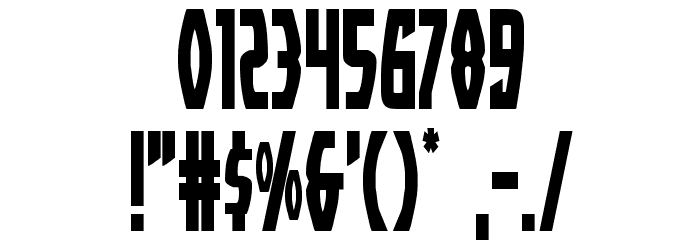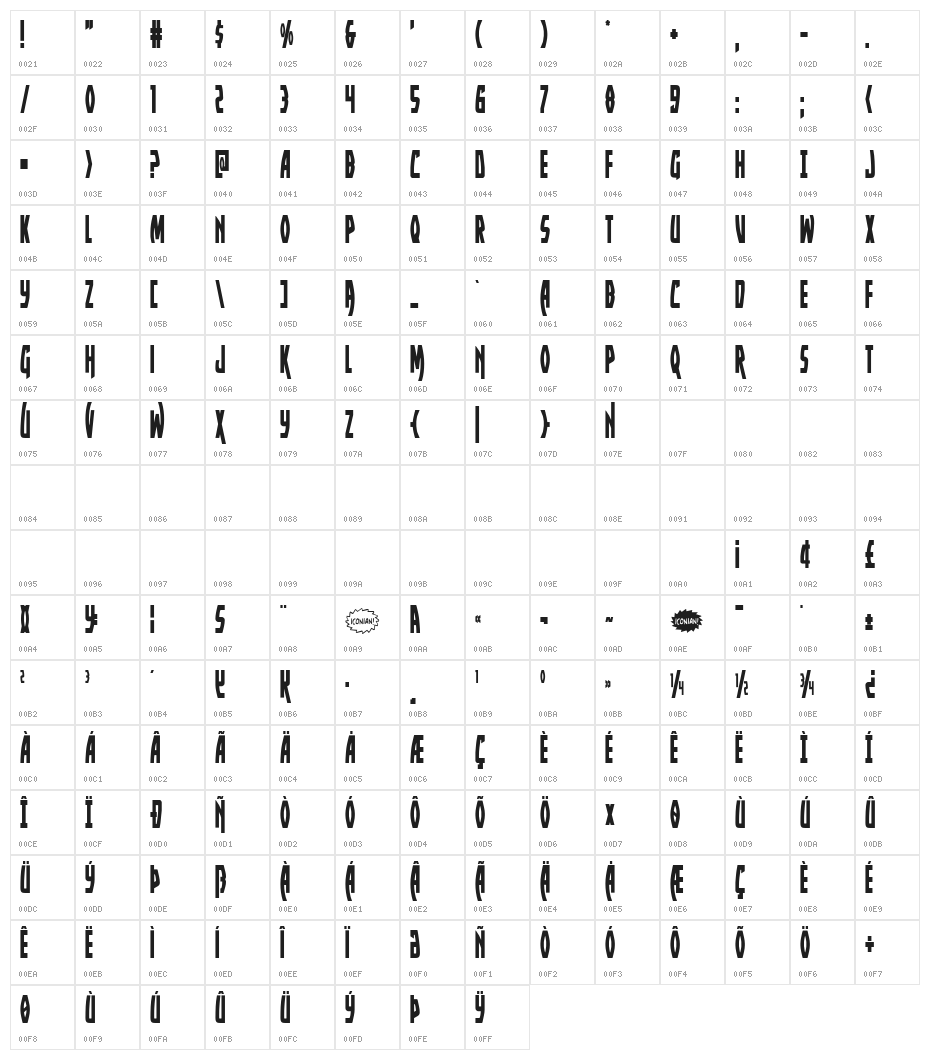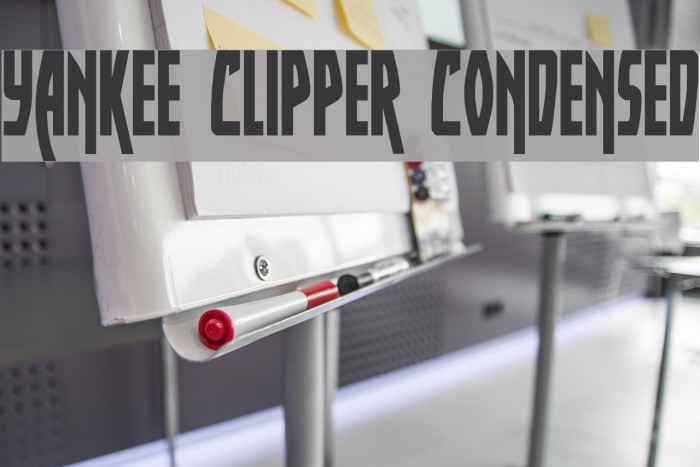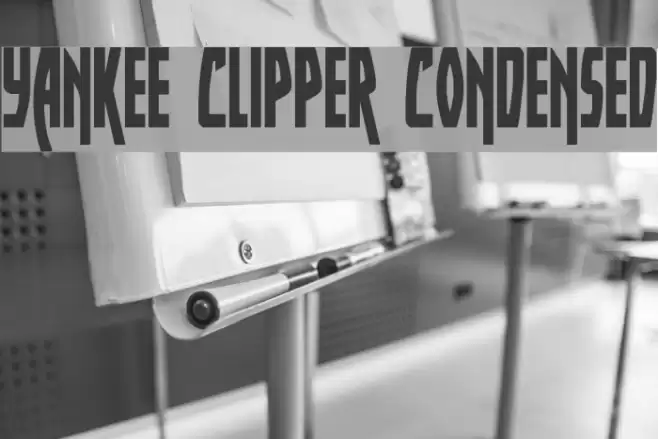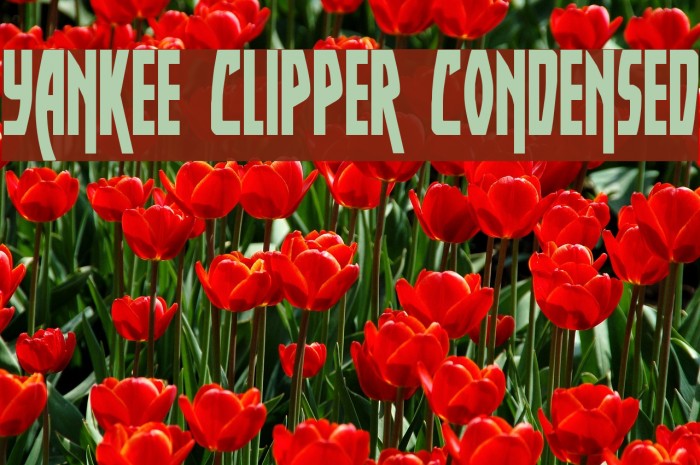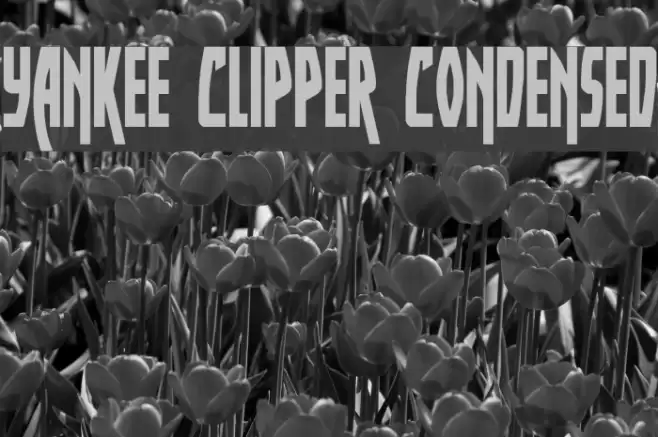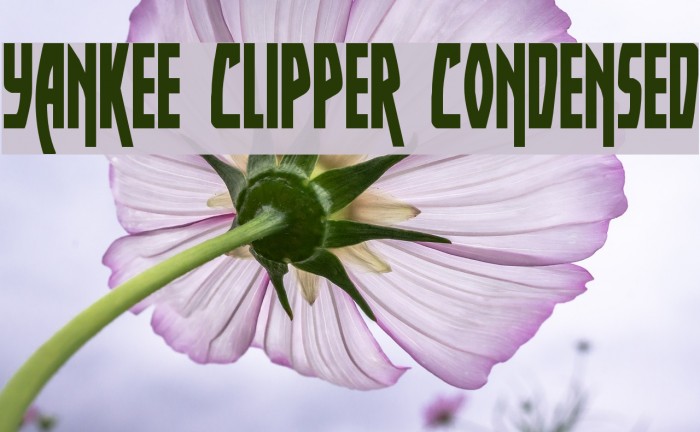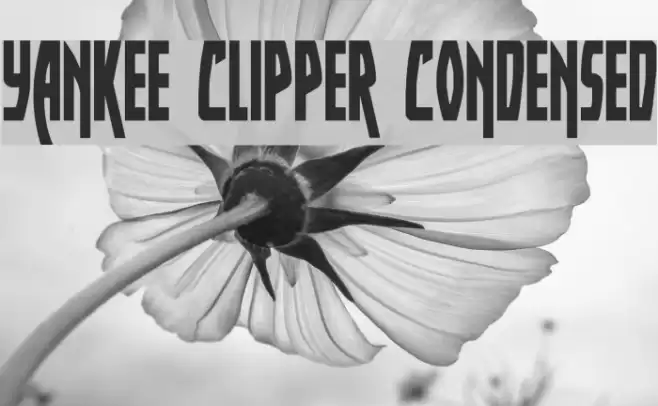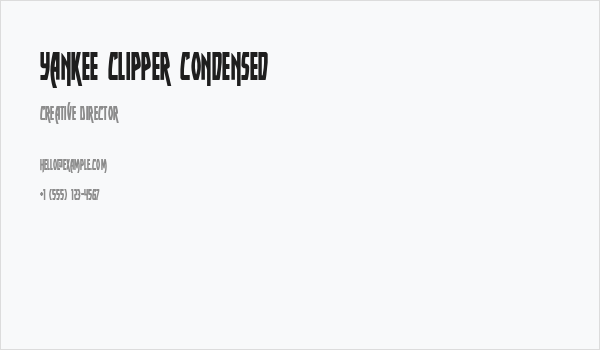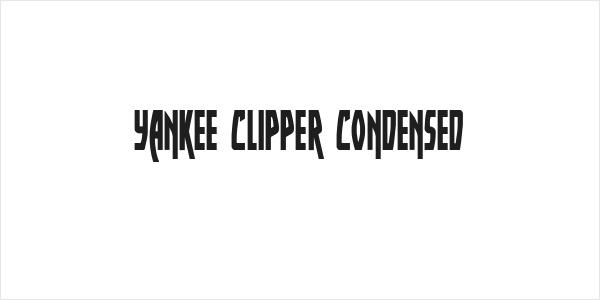
Yankee Clipper Condensed Font
Yankee Clipper Condensed Description
This font features a bold and condensed style with a strong presence. The uppercase letters are tall and narrow, giving a sense of height and impact. The lowercase letters maintain the condensed form, ensuring consistency throughout the typeface. Numbers are similarly bold and condensed, making them stand out clearly. The special characters are designed to match the overall aesthetic, with sharp angles and a robust appearance. This font is ideal for projects that require a strong visual impact, such as posters, headlines, and branding materials. Its condensed nature allows for efficient use of space while maintaining readability.
| Proposed Projects | Ideal for posters, headlines, branding, and any project needing a strong visual impact. |